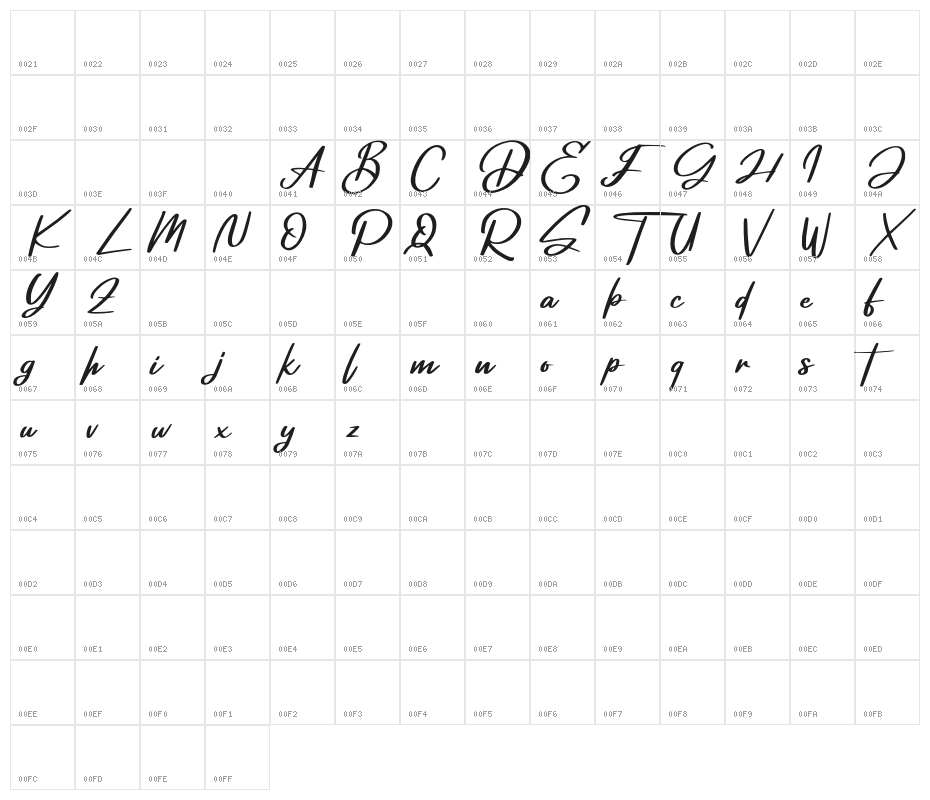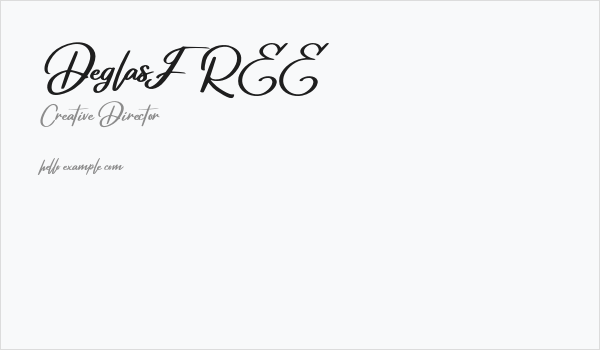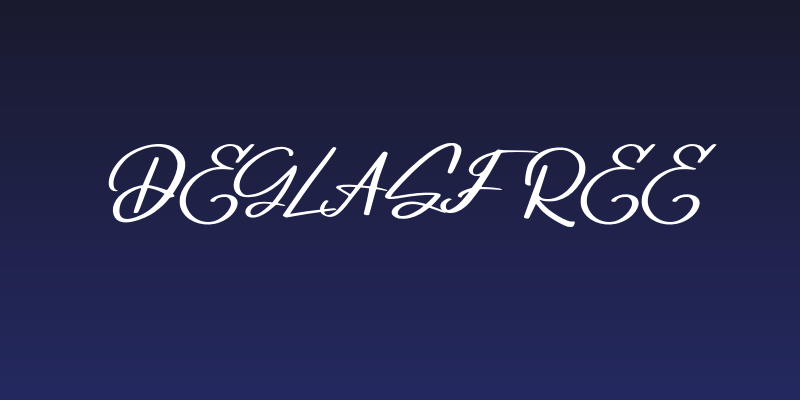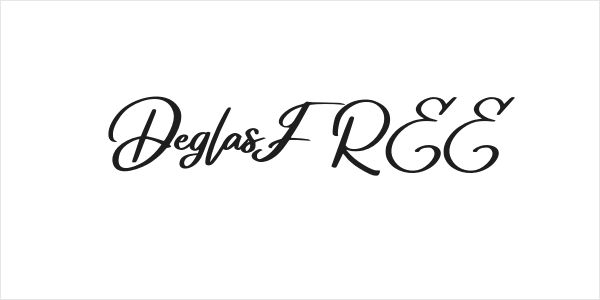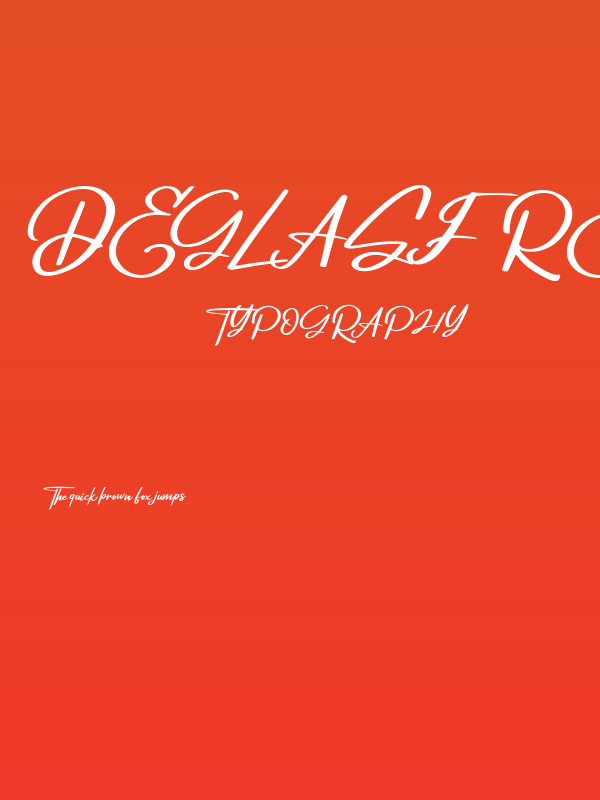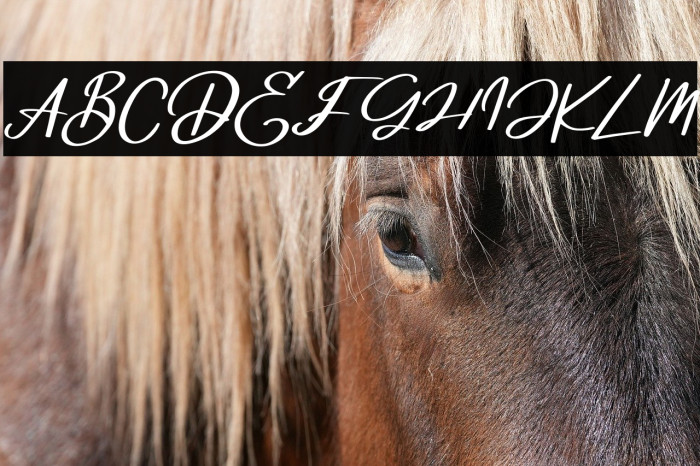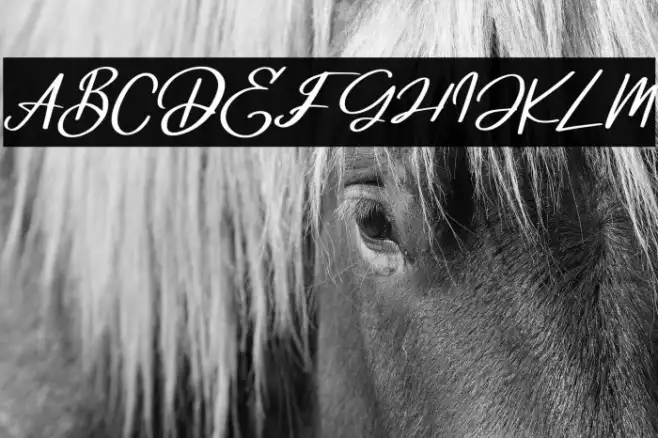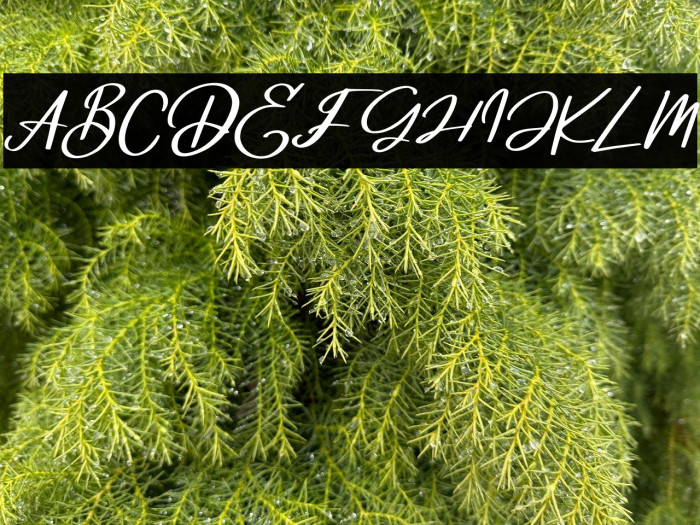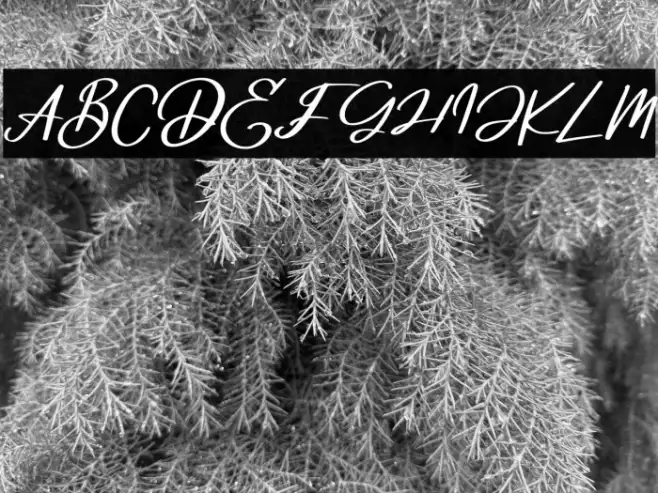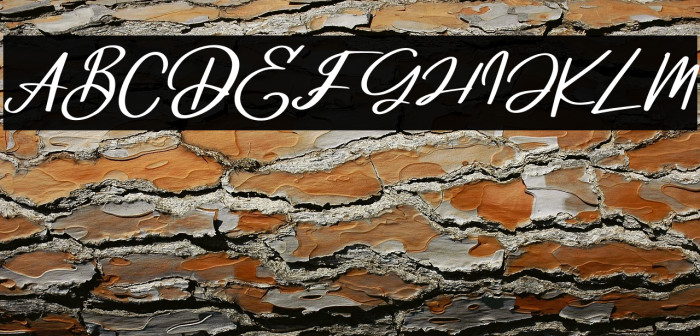
DeglasFREE Font
DeglasFREE Description
This font features a dynamic and flowing script style, characterized by its elegant and fluid letterforms. The uppercase letters exhibit a graceful, cursive design with smooth curves and a slight slant, creating a sense of movement and sophistication. The lowercase letters maintain this fluidity, with some characters extending below the baseline, adding to the font's expressive nature. The overall appearance is both stylish and modern, making it suitable for a variety of creative applications. The font's bold strokes and varying line thicknesses contribute to its distinctive and eye-catching look.
| Proposed Projects | Ideal for wedding invitations, branding, logos, and elegant packaging designs. |